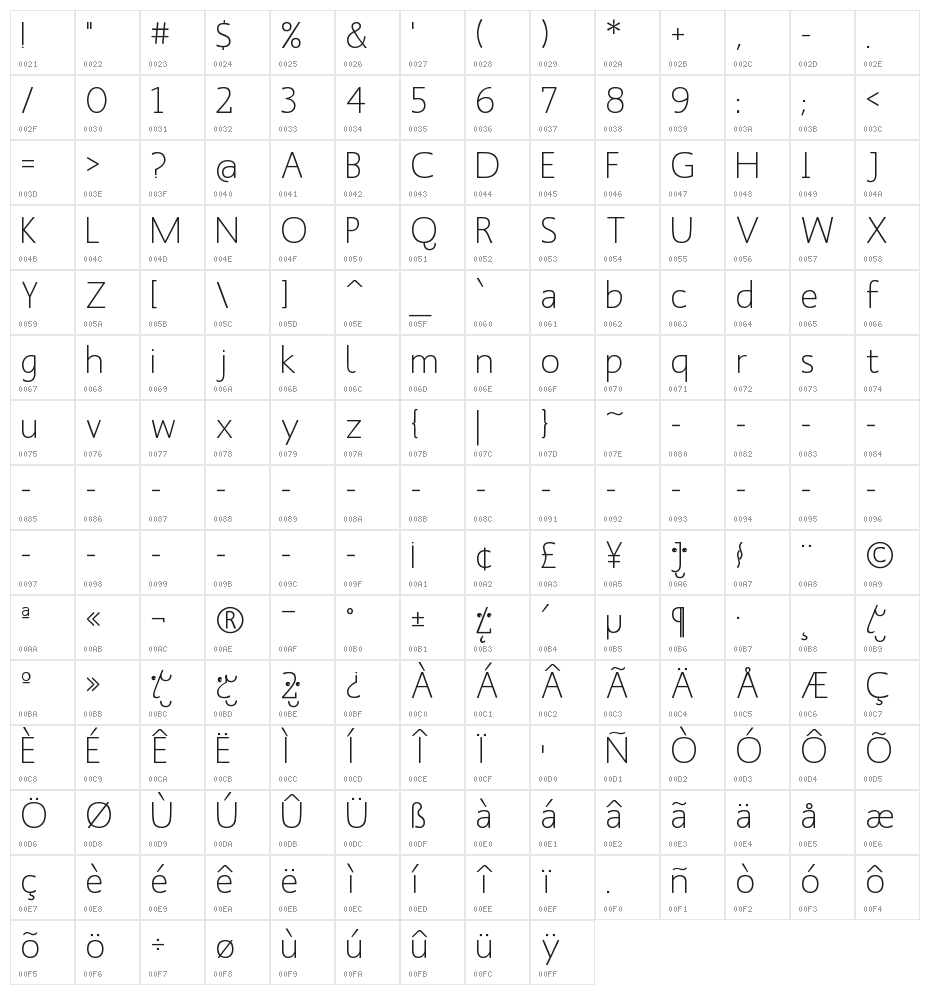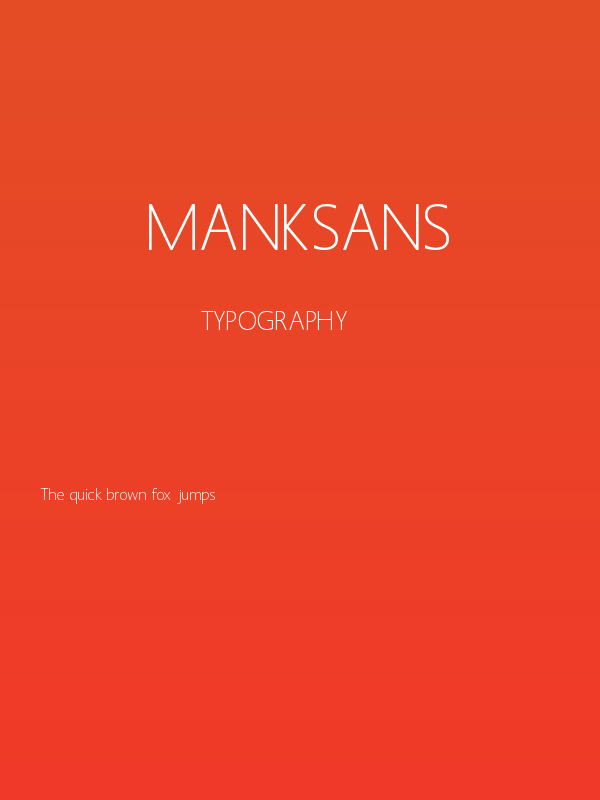
MankSans Font
MankSans Description
This font features a clean and modern sans-serif design with a geometric structure. The characters are evenly spaced, providing a balanced and harmonious appearance. The uppercase letters are tall and uniform, while the lowercase letters maintain a consistent height, contributing to its readability. The numerals are clear and distinct, making them suitable for various applications. The special characters are well-defined, ensuring versatility in usage. Overall, this font exudes a contemporary and minimalist aesthetic, making it ideal for digital and print media.